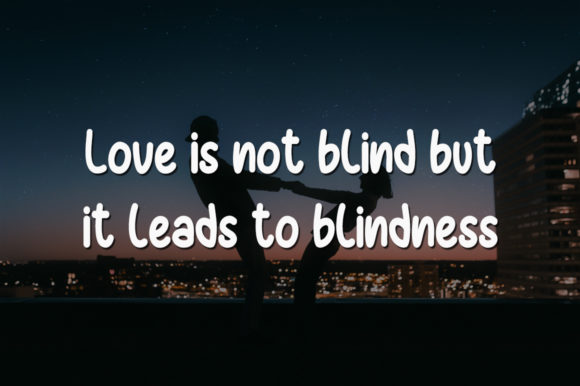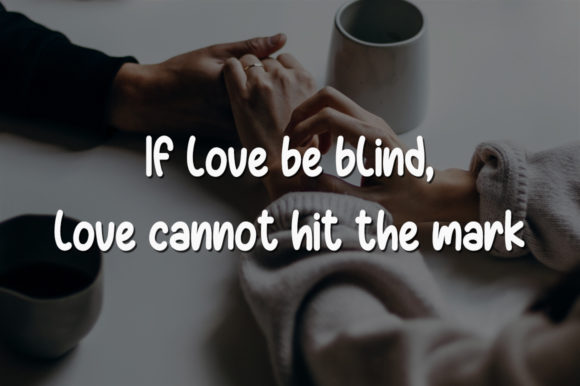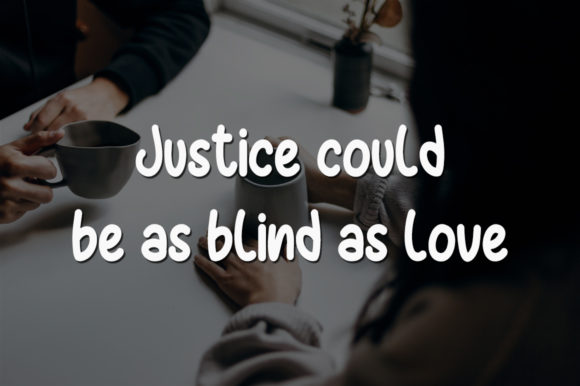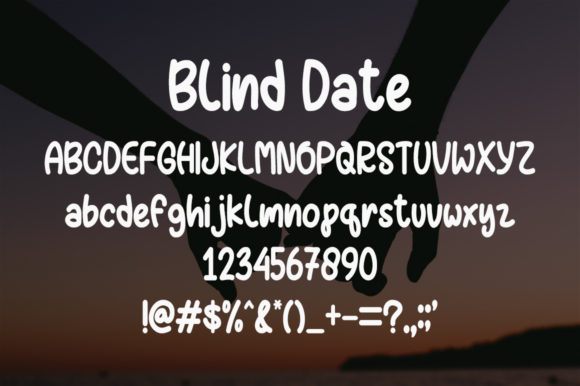
Blind Date Font
About Blind Date Font
Blind Date is a bold and simple handwritten font that offers a wide range of creative possibilities. With its clean and straightforward style, it adds a touch of elegance and modernity to any design.
The simplicity of Blind Date makes it a versatile choice for various design applications. Whether you’re working on logos, branding materials, social media graphics, posters, or any other project, Blind Date brings a sense of clarity and sophistication to your typography.
The boldness of Blind Date’s strokes gives your text a strong and impactful presence. It commands attention and ensures that your message stands out. Whether used for headlines or as a focal point in your design, Blind Date delivers a bold statement.
The handcrafted feel of Blind Date adds a personal and authentic touch to your designs. It captures the essence of handwritten letters, providing a genuine and warm aesthetic. This makes it ideal for conveying a sense of friendliness, approachability, or a casual yet professional vibe in your designs.
Blind Date is designed to be versatile and easy to work with. It pairs well with other fonts, allowing you to create interesting typographic combinations and visual hierarchies. Experiment with different sizes, weights, and letter spacing to find the perfect balance for your design.
The simplicity of Blind Date also makes it a great choice for pairing with illustrations, icons, or graphics. It complements various visual elements and ensures that your text remains legible and visually cohesive.
In summary, Blind Date is a bold and simple handwritten font that enables you to create beautiful designs with ease. Its clean and straightforward style brings clarity and impact to your typography, making it suitable for a wide range of projects. Embrace the versatility of Blind Date and let your creativity soar!